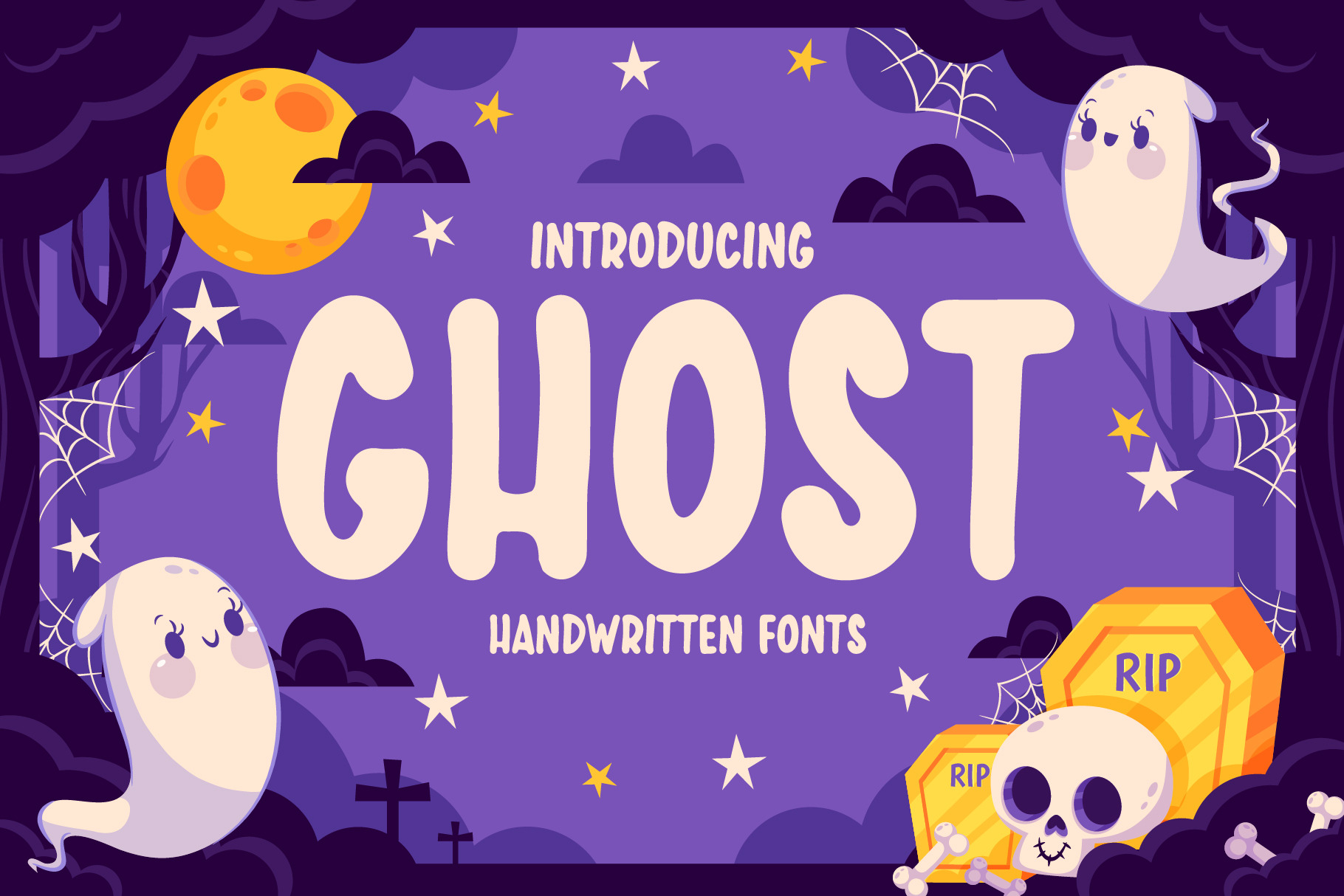
Ghost Fonts
Ghost is a handwritten display font. cute, beautiful, and fun Suitable for a variety of designs such as Halloween, and children's themes. It is perfect for logos, t-shirts, papers, print designs, website headers, photo frames, flyers, music covers, posters, image sliders, and much more.